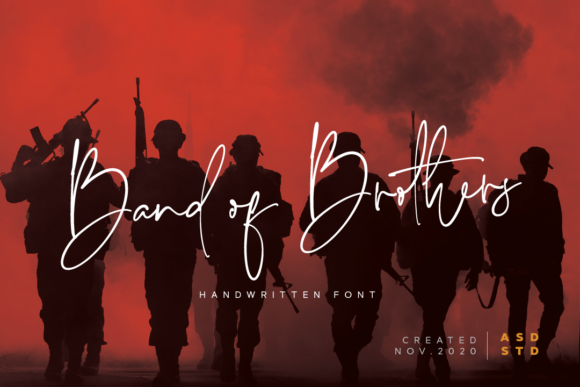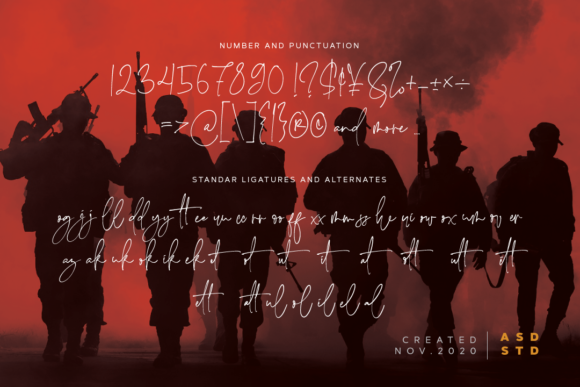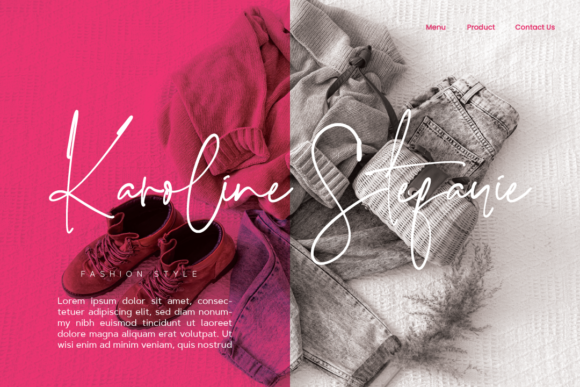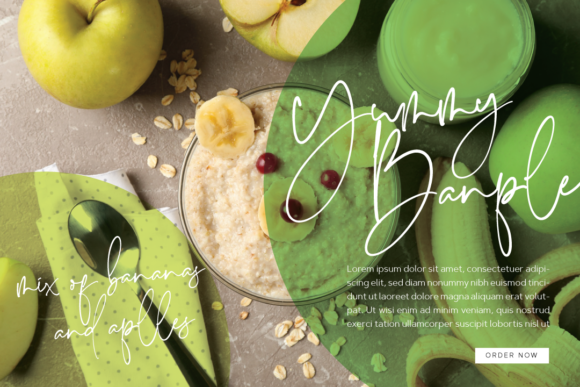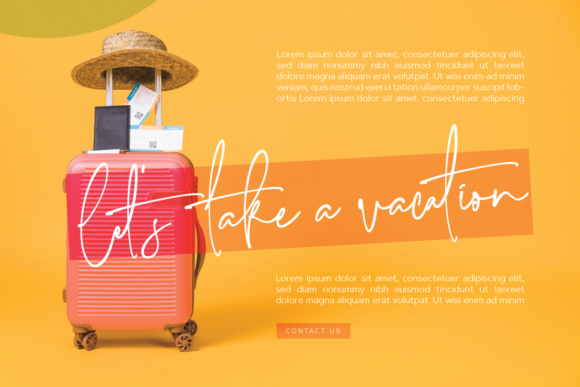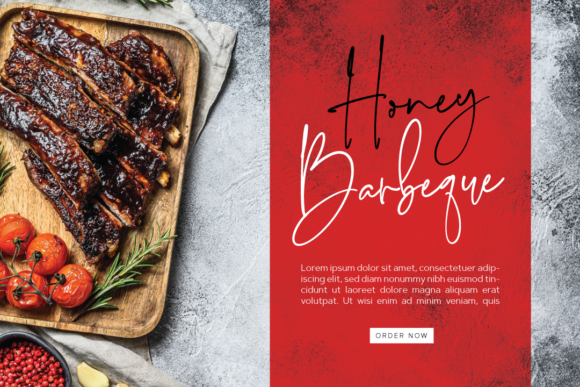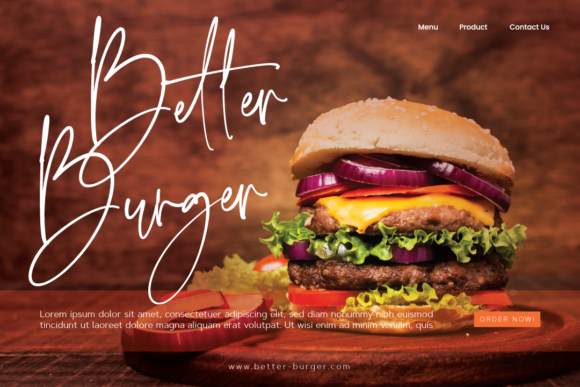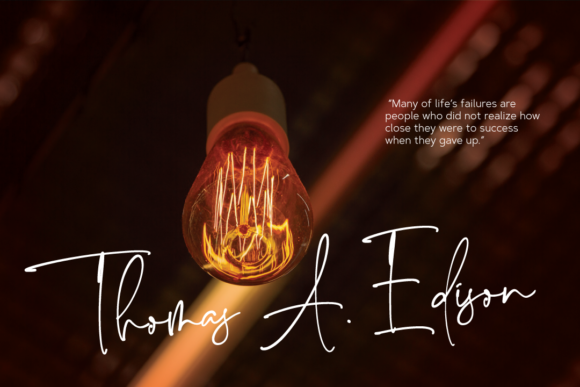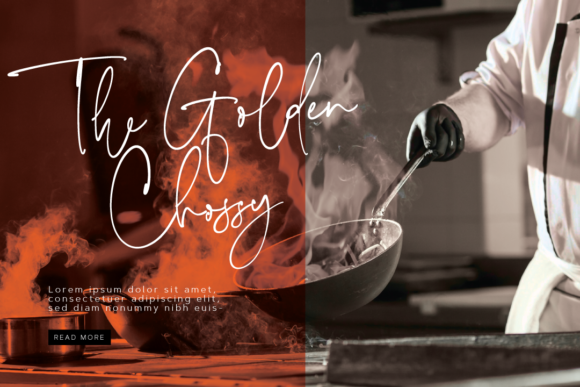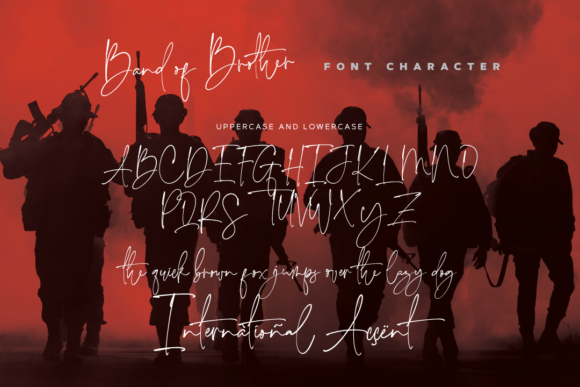
Band of Brothers Font
About Band of Brothers Font
Band of Brothers is an elegant and flowing handwritten font. Not too thin and not too thick, balanced and varied, Gidget was designed to enhance the beauty of your projects.